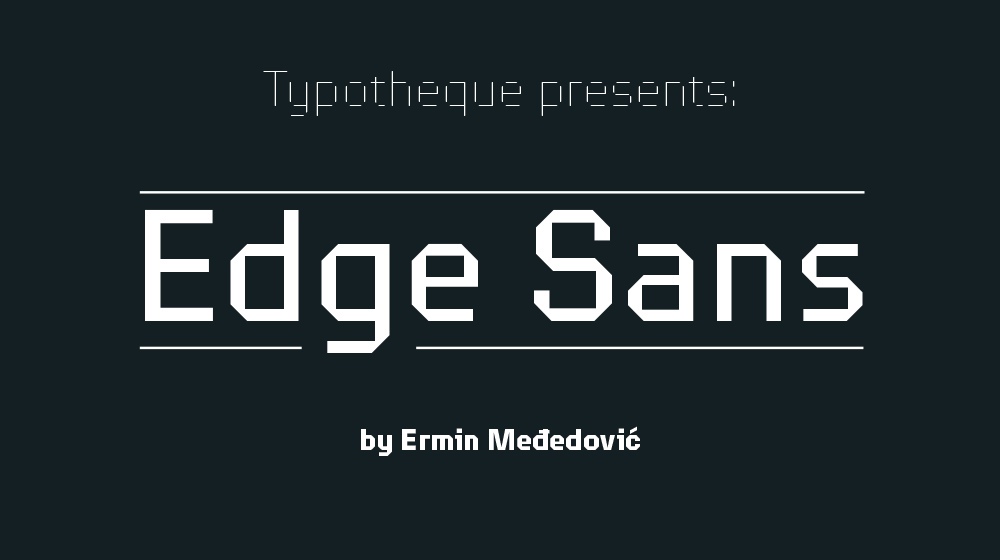
Edge Sans Font
Edge Sans Font is perfect for cutting-edge technology company branding, innovative startup logos, modern design agency presentations, contemporary architecture firm materials, progressive software interface designs, forward-thinking consulting graphics, advanced engineering documentation, dynamic digital platform communications, revolutionary product launches, and trendsetting creative industry applications. This sharp typeface excels in applications where innovative leadership, competitive advantage, and cutting-edge sophistication are fundamental brand characteristics.
What makes Edge Sans Font exciting is its razor-sharp embodiment of competitive advantage through precisely engineered letterforms that capture the decisive clarity and strategic focus essential for market-leading organizations and innovative industry pioneers. The font features clean character construction with sharp angular details and optimized proportions that immediately convey precision, determination, and the kind of competitive edge that separates industry leaders from followers. Its commanding presence makes it perfect for brands that refuse to follow trends and instead create the standards that others strive to match.
The Edge Sans Font family typically includes comprehensive weight options from Light to Bold, often featuring condensed variations that maximize impact while maintaining the sharp, precise aesthetic essential for competitive positioning and market leadership. Many versions include alternate characters with enhanced angular styling, technical symbols commonly used in innovation-focused industries, and specialized punctuation marks that reflect cutting-edge communication standards. Some collections include ultra-sharp variations and dynamic effects that amplify the competitive advantage atmosphere for maximum market impact.